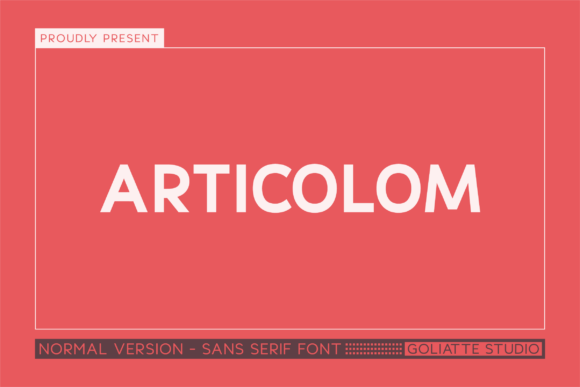
Designing with Impact: The Articolom Font Revolution
Have you ever been brainstorming a project and suddenly, the perfect font pops into your head? For designers, those eureka moments are the best – and they can make all the difference in bringing a concept to life. For us, it was the moment we discovered Articolom Font, a bold, all-caps sans serif typeface designed to make a statement.
Articolom Font is more than just a font – it’s a powerful tool for designers looking to create professional, eye-catching projects. With its clean lines and minimalist aesthetic, this versatile typeface is perfect for branding, logos, packaging, and digital design. Whether you’re working on a large-scale campaign or a small business logo, Articolom Font is sure to bring your message to life.
Articolom Font Key Features
- Font Size: The font comes in multiple weights, ranging from Light to Black, allowing designers to choose the perfect size for their project.
- Unique Characteristics: Articolom Font features a distinctive, modern design with clean lines and geometric shapes, making it perfect for contemporary branding and design projects.
- Language Support: The font supports a wide range of languages, including Latin, Cyrillic, and Greek alphabets, making it a great choice for global brands and projects.
- Scalability: Articolom Font is highly scalable, allowing it to be used in a variety of contexts, from small text to large headlines and titles.
Designer Review: Articolom Font
Overall, I’m quite pleased with the Articolom font, but it’s not without its quirks. Here’s my honest review:
- ✨ Articolom has a unique, elegant feel to it. The curves are smooth, and the letterforms are well-balanced.
- ✨ The font has a good range of weights, from Light to Bold, making it suitable for various design projects.
- ✨ The font is highly legible, even at smaller sizes, which is a must-have for any font.
- ⚠️ The font may not be the best choice for bold, headline-heavy designs. The bold weight can feel a bit too thin at larger sizes.
- ⚠️ Some users may find the font’s x-height a bit too large, which can affect the overall line spacing.
Overall, I think Articolom is a solid choice for designers looking for a clean, elegant font. While it may not be perfect, it’s a great addition to any font library. With a bit of careful planning and consideration, Articolom can be a valuable asset in your design toolkit.
Articolom Font is ideal for:
- Creating elegant headings and titles.
- Designing luxury brand identities.
- Adding a touch of sophistication to your designs.
For optimal readability, we recommend using a font size between 12 and 14 points, with a line height of 1.2 to 1.5 times the font size. This will help ensure that the text is clear and easy to read, while also maintaining the font’s elegant and sophisticated appearance.